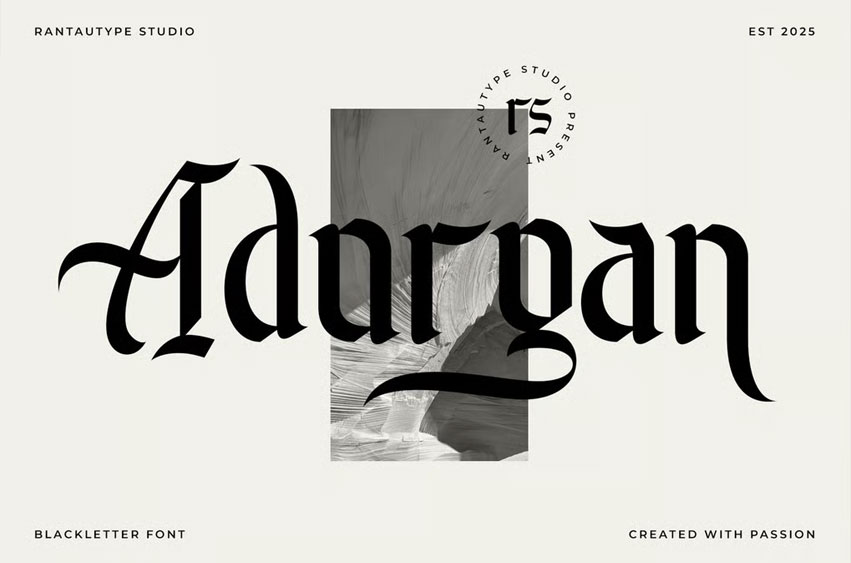
Adorgan Font
Adorgan Font is a blackletter typeface characterized by its high contrast shapes. It is an excellent choice for a variety of creative endeavors, including lifestyle design, logotypes, advertisements, watermarks for photography, stationery, branding projects, displays, magazines, invitations, corporate branding, product design, labels, and business projects. This font adds a medieval touch to any project.